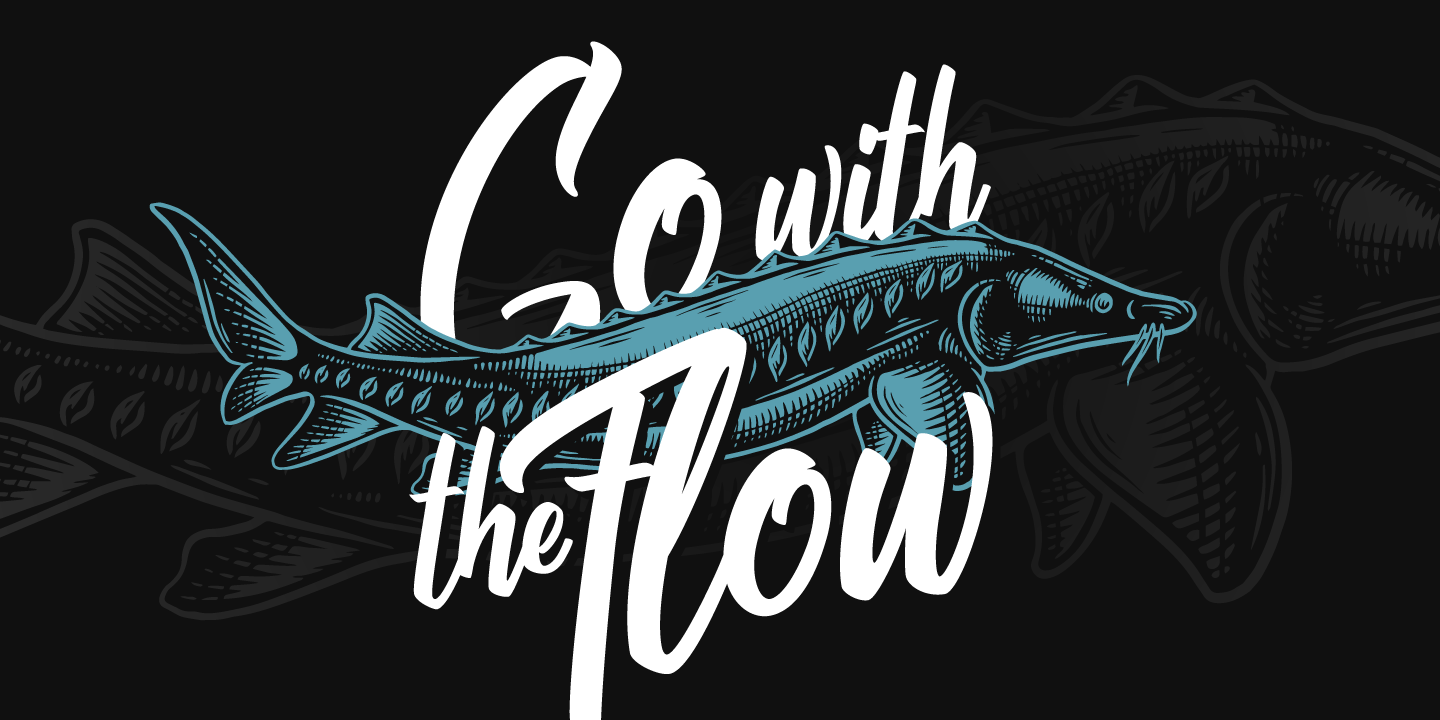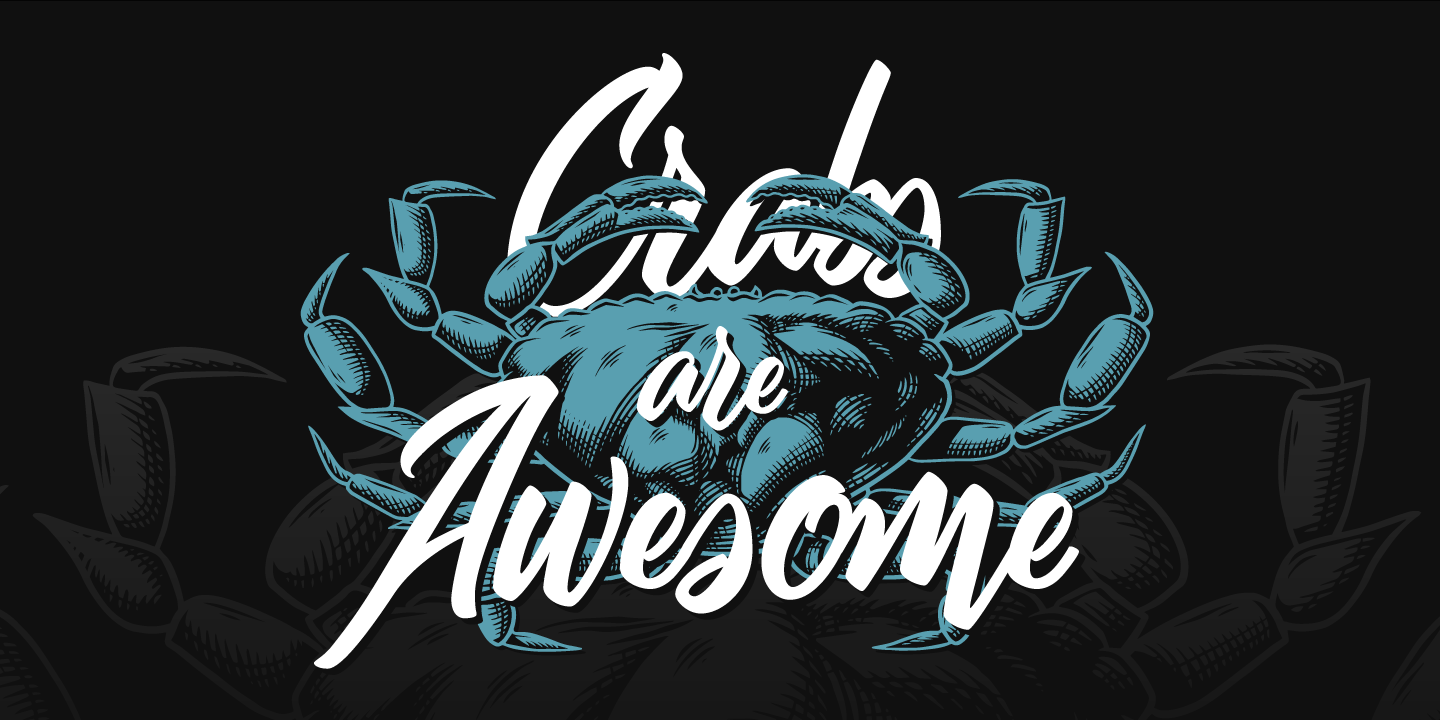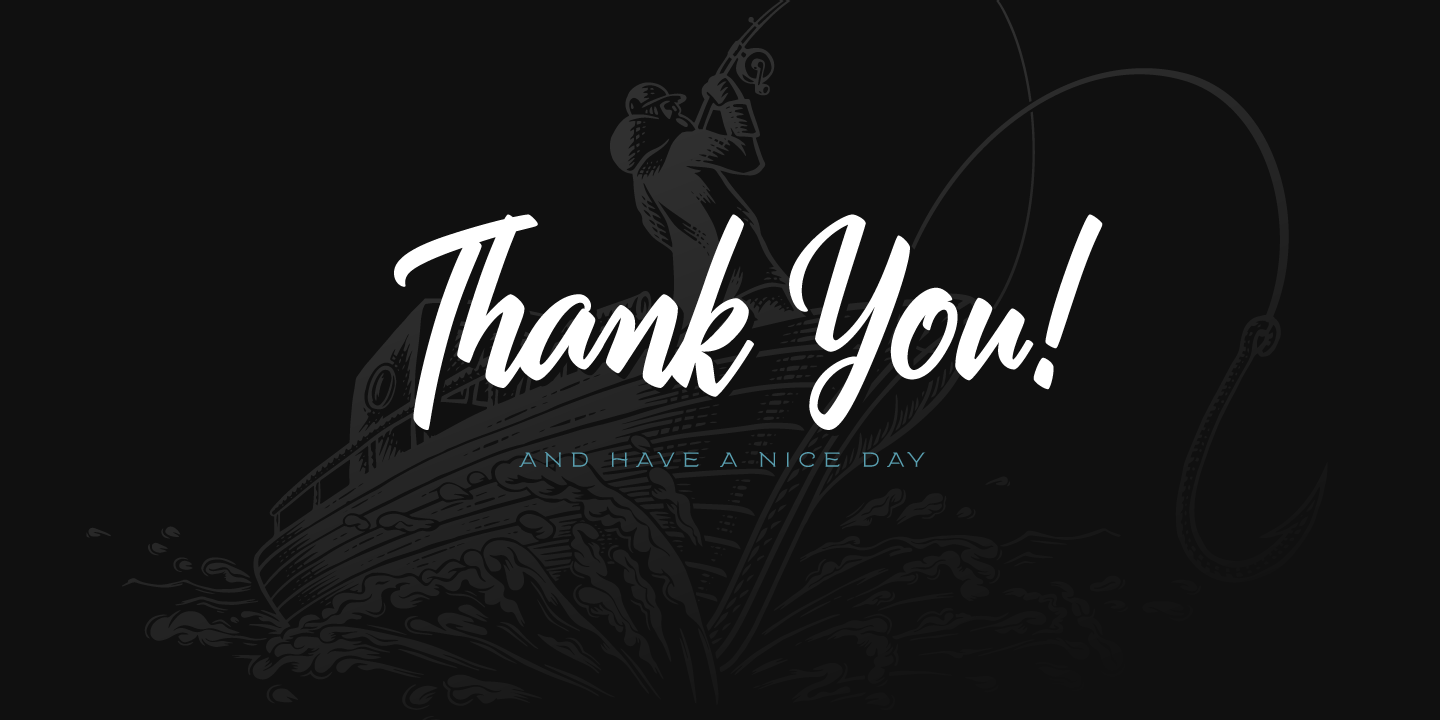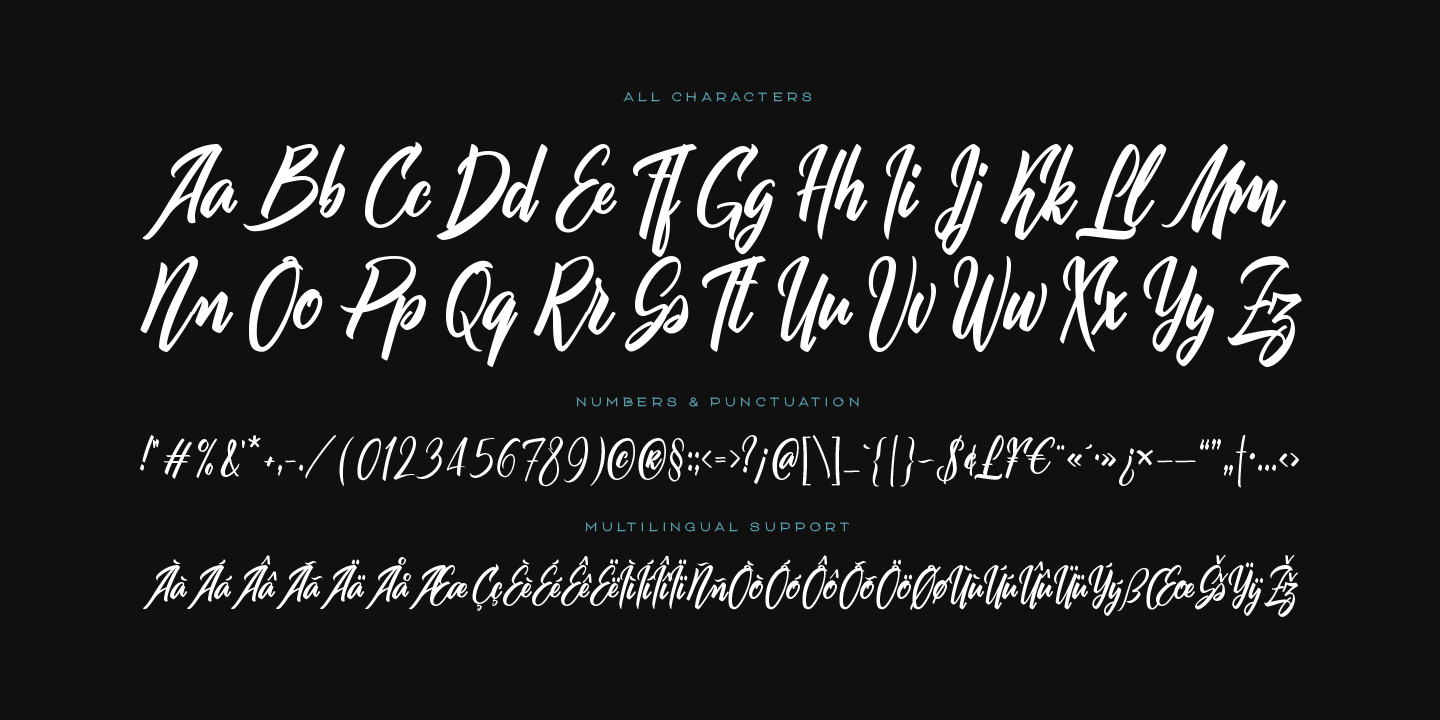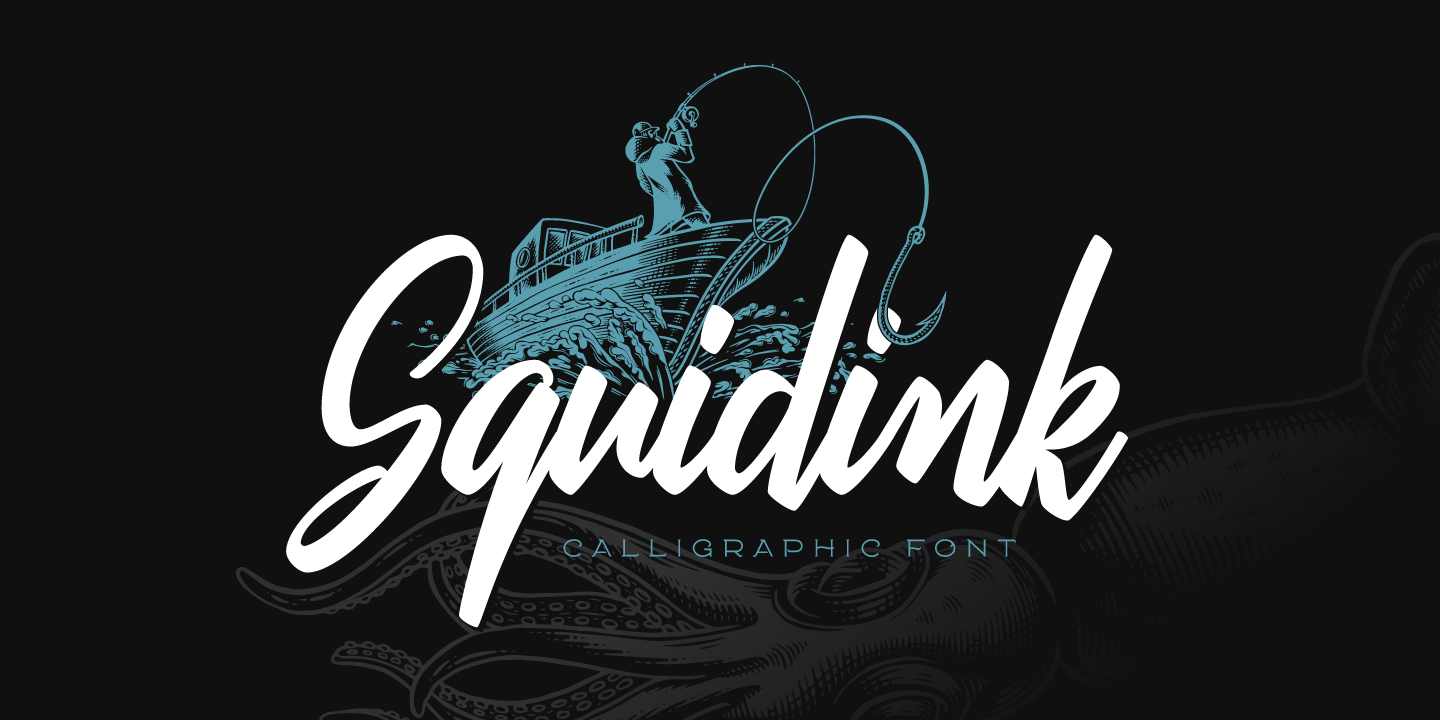
Squidink Regular
Introducing a calligraphic script font named Squidink. This smooth font is perfect for lettering, has lots of ligatures and multilingual support.